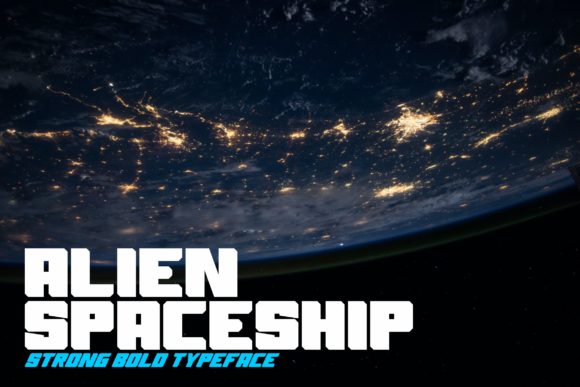
Alien Spaceship Font: The Ultimate Guide to this Futuristic Display Font
In the realm of typography, few fonts have managed to capture the essence of futurism and otherworldliness as effectively as the Alien Spaceship Font. This cool and bold display font has been making waves in the design community, and for good reason. With its minimalist characters and sleek aesthetic, Alien Spaceship is perfect for a wide range of applications, from logos and name cards to magazine layouts, headers, and even large-scale artwork.
What is Alien Spaceship Font?
Alien Spaceship Font is a display font that embodies the spirit of futurism and space exploration. Its design is characterized by clean lines, minimalist characters, and a bold aesthetic that is sure to grab attention. The font’s unique design makes it an excellent choice for projects that require a touch of otherworldliness, such as sci-fi themed artwork, futuristic logos, and avant-garde magazine layouts.
Key Features of Alien Spaceship Font
- Minimalist Characters: The font’s minimalist design ensures that each character is simple, yet distinctive and easily recognizable.
- Bold Aesthetic: Alien Spaceship Font has a bold and striking appearance that is perfect for making a statement.
- Clean Lines: The font’s clean lines and curves create a sleek and futuristic look that is ideal for modern designs.
- Versatile: Alien Spaceship Font can be used for a wide range of applications, from logos and name cards to magazine layouts, headers, and large-scale artwork.
10 Creative Ways to Use Alien Spaceship Font
- Logos: Use Alien Spaceship Font to create a futuristic and memorable logo for your brand or company.
- Name Cards: Add a touch of otherworldliness to your name cards with this unique and stylish font.
- Magazine Layouts: Use Alien Spaceship Font to create eye-catching headlines and add a futuristic touch to your magazine layouts.
- Headers: Add a bold and striking header to your website or blog with Alien Spaceship Font.
- Large-Scale Artwork: Use Alien Spaceship Font to create stunning large-scale artwork that is sure to grab attention.
- Social Media Graphics: Create eye-catching social media graphics with Alien Spaceship Font and make your posts stand out.
- Advertising: Use Alien Spaceship Font to create bold and attention-grabbing advertisements that are sure to drive results.
- Packaging Design: Add a touch of futurism to your packaging design with Alien Spaceship Font.
- Film and Video Titles: Use Alien Spaceship Font to create futuristic and eye-catching titles for your films and videos.
- Web Design: Use Alien Spaceship Font to create a bold and striking website that is sure to leave a lasting impression.
The Benefits of Using Alien Spaceship Font
Alien Spaceship Font offers a range of benefits for designers and artists, including:
- Uniqueness: Alien Spaceship Font is a unique and distinctive font that is sure to set your designs apart from the crowd.
- Versatility: The font’s versatility ensures that it can be used for a wide range of applications and projects.
- Attention-grabbing: Alien Spaceship Font is designed to grab attention and make a statement.
- Easy to Read: Despite its bold and futuristic design, Alien Spaceship Font is easy to read and understand.
Tips and Tricks for Using Alien Spaceship Font
To get the most out of Alien Spaceship Font, follow these tips and tricks:
- Use it sparingly: Alien Spaceship Font is a bold and attention-grabbing font, so use it sparingly to avoid overwhelming your designs.
- Pair it with other fonts: Experiment with pairing Alien Spaceship Font with other fonts to create a unique and striking typography combination.
- Adjust the size: Adjust the size of Alien Spaceship Font to create visual interest and hierarchy in your designs.
- Experiment with colors: Experiment with different colors and textures to add depth and interest to your designs.
In conclusion, Alien Spaceship Font is a cool and bold display font that is perfect for designers and artists looking to add a touch of futurism to their work. With its minimalist characters, clean lines, and bold aesthetic, Alien Spaceship Font is sure to grab attention and make a statement. Whether you’re creating logos, name cards, magazine layouts, headers, or large-scale artwork, Alien Spaceship Font is an excellent choice.